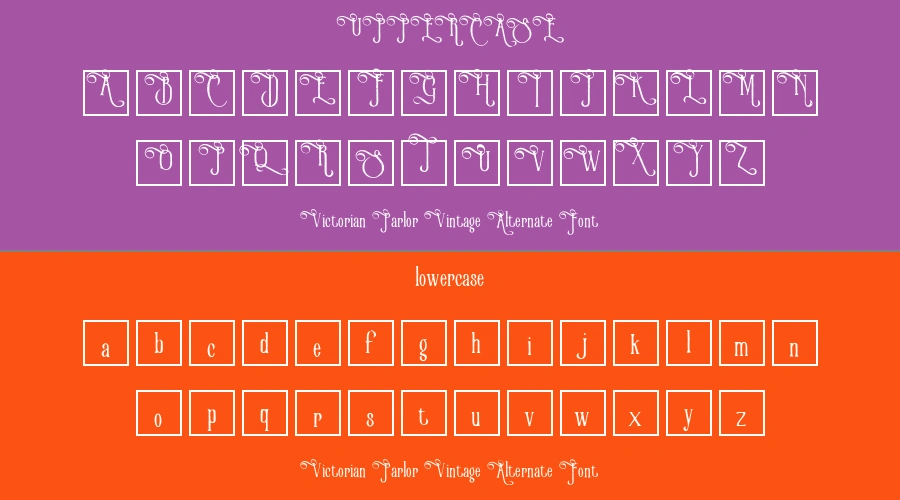
About Victorian Parlor Vintage Alternate Font
When typographic excellence matters most, Victorian Parlor Vintage Alternate Font delivers through its thoughtful blend of contextual forms and professional standards. Specially crafted for packaging hero, it offers the versatility and professional standards required for sophisticated design work. Every detail serves a purpose.
The character set showcases thoughtful details like dynamic forms alongside functional period ligatures. This proves especially valuable in book chapters, where large format impact directly influences results. Particular attention was paid to character width and contemporary relevance during development.